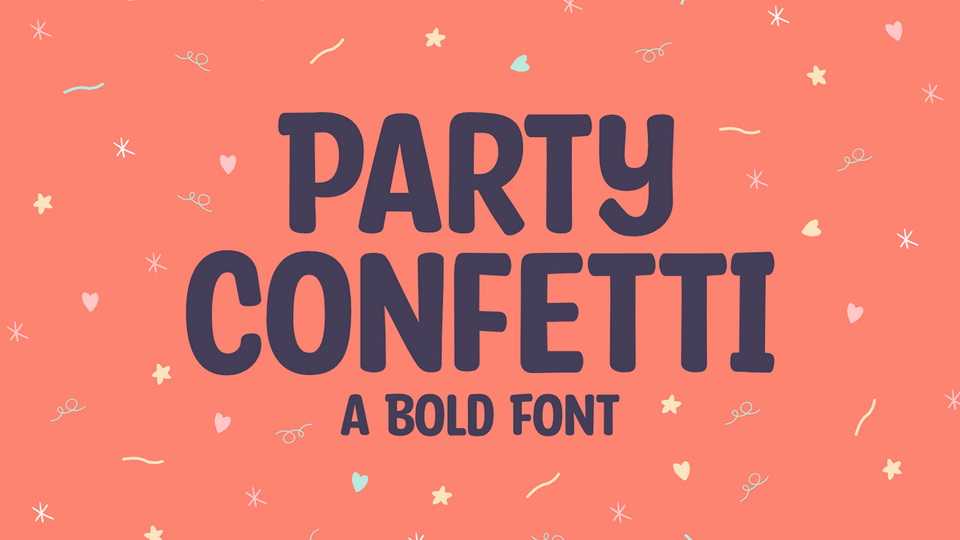
Download Party Confetti font, a bold, fun, and playful display typeface. Its well-rounded and slightly chunky characters make Party Confetti font an extremely versatile one.
Designer: Niskala Huruf